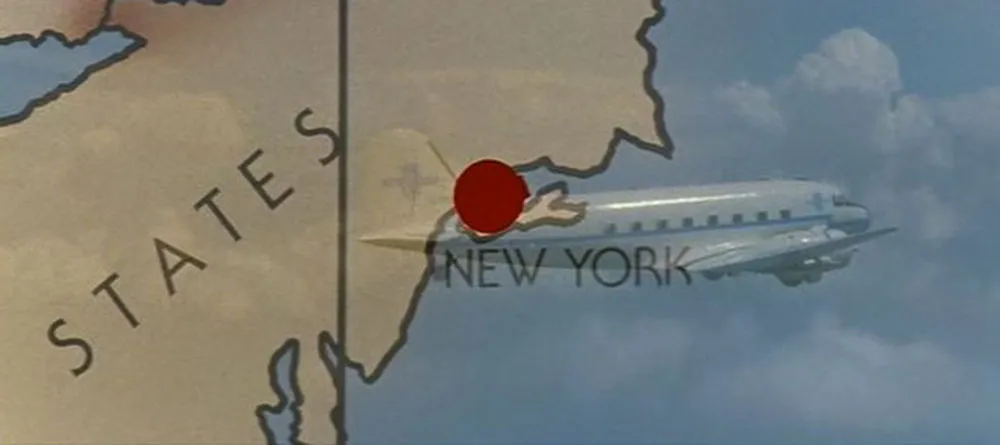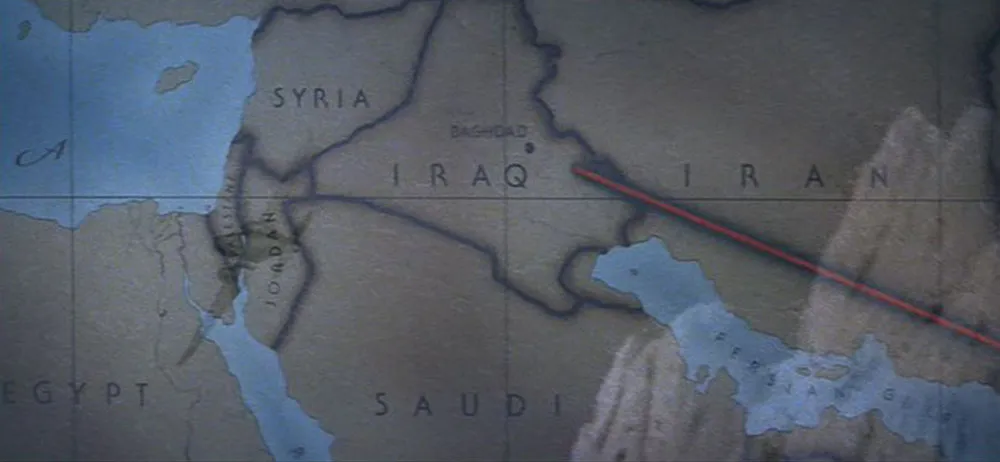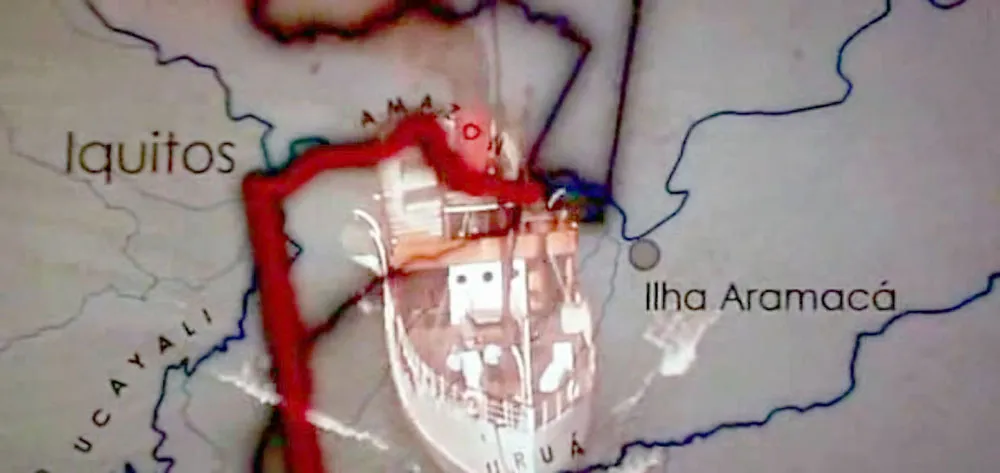
Indiana Jones and the Fonts on the Maps
In Indiana Jones and the Last Crusade, there is a funny scene in which Indy’s father breaks a vase over Indy’s head. As soon as he does it, he looks horrified—not because he’s mistakenly attacked his own son, but because he notices that it was a priceless Ming vase. Upon closer examination, he is relieved to discover the vase is a fake.
Now that the fourth (and last?) Indiana Jones movie is out, I made a similar examination of the use of type in the series, but I was not quite as relieved. For the most part, the type usage in each of the movies is correct for the period depicted. With one exception: The maps used in the travel montages.
Whenever Indy is traveling great distances, which happens in all the films, there is a montage of the airplane or boat superimposed over an animated map showing the route. It’s an old-fashioned convention, an homage to the movies of the Thirties and Forties. Unfortunately, the typefaces would be more at home a few decades later.
Still from Raiders of the Lost Ark
In Raiders of the Lost Ark (1981) which is set in 1936, we see ITC Serif Gothic (designed in 1972). The wide spacing feels right, and it does have an art deco feel, but it’s 1970s art deco.
Still from Indiana Jones and the Temple of Doom
Indiana Jones and the Temple of Doom (1984) strays even further in the anachronistic type department by using Helvetica (1957), which looks even less plausible than Serif Gothic.
Still from Indiana Jones and the Last Crusade
The third installment, Indiana Jones and the Last Crusade (1989), goes back to the formula used in the first film in many ways, including the use of ITC Serif Gothic again on the map. Not appropriate for a film set in 1938, either.
Still from Indiana Jones and the Kingdom of the Crystal Skull
Did they finally get it right in the fourth film, Indiana Jones and the Kingdom of the Crystal Skull (2008)? Not quite. They didn’t use Serif Gothic this time, or even Helvetica (which would just have been released in 1957, the year in which the film is set). Instead, they used Century Gothic, a font that didn’t exist until 1989. This wouldn’t necessarily be a problem since Century Gothic’s caps are very similar to Futura, which would be perfectly appropriate for 1957. Unfortunately, Century Gothic is also a clone of Avant Garde (1970), a typeface with very large lowercase letters, a quintessentially Seventies characteristic. (More about Century Gothic here.) So, not the best choice.